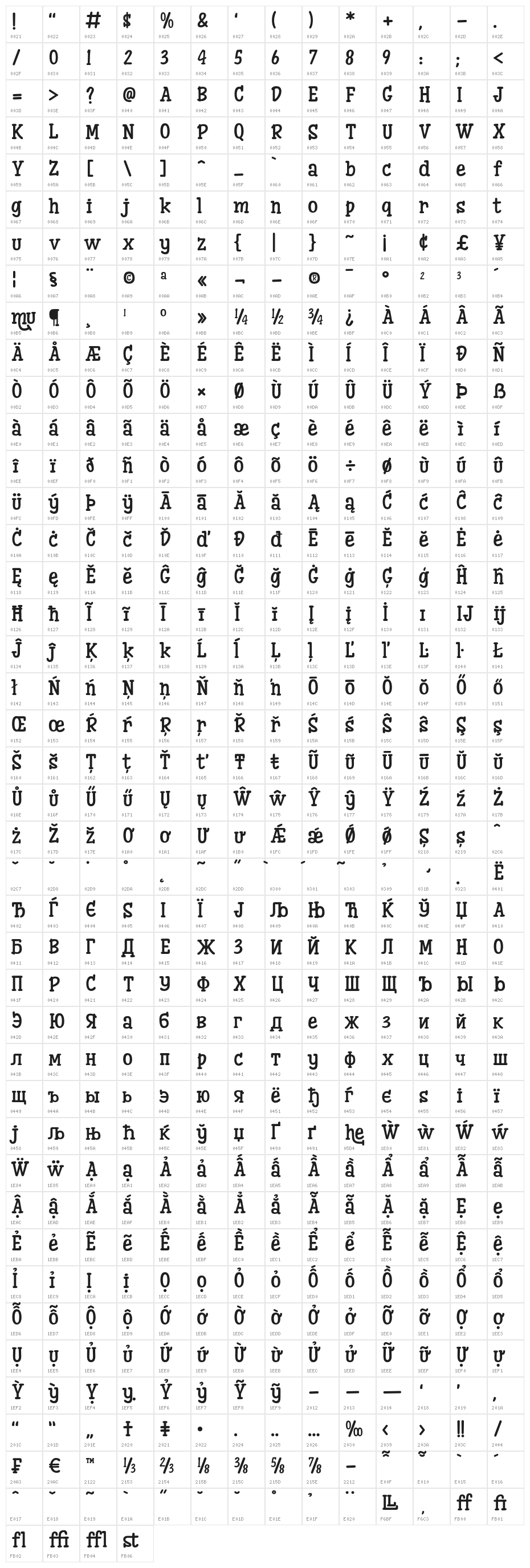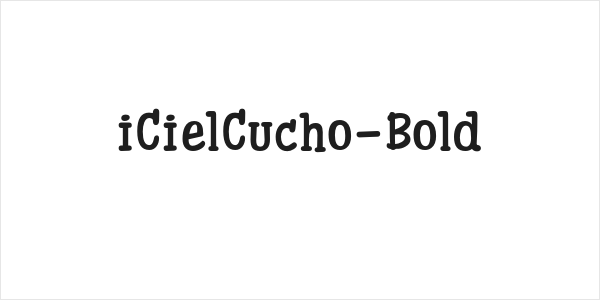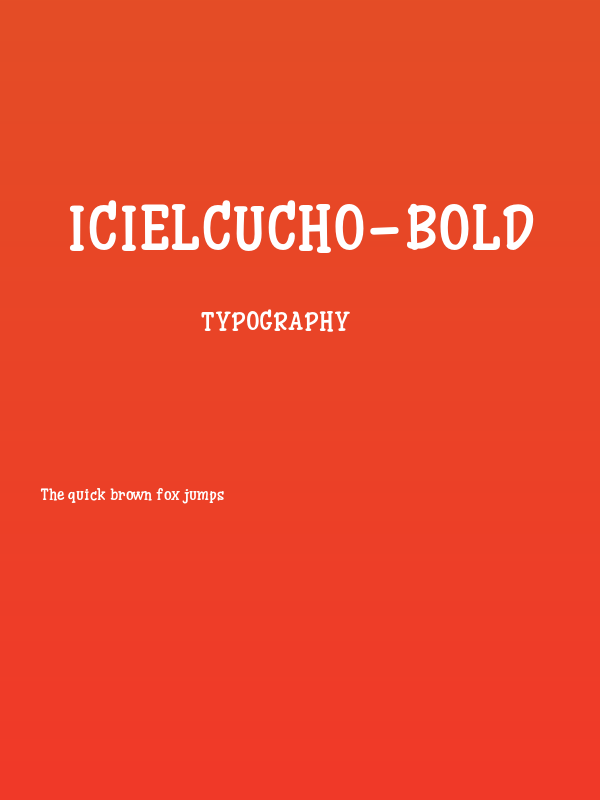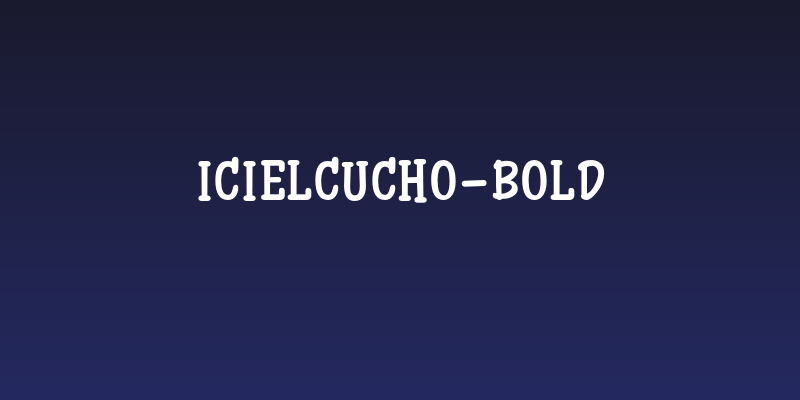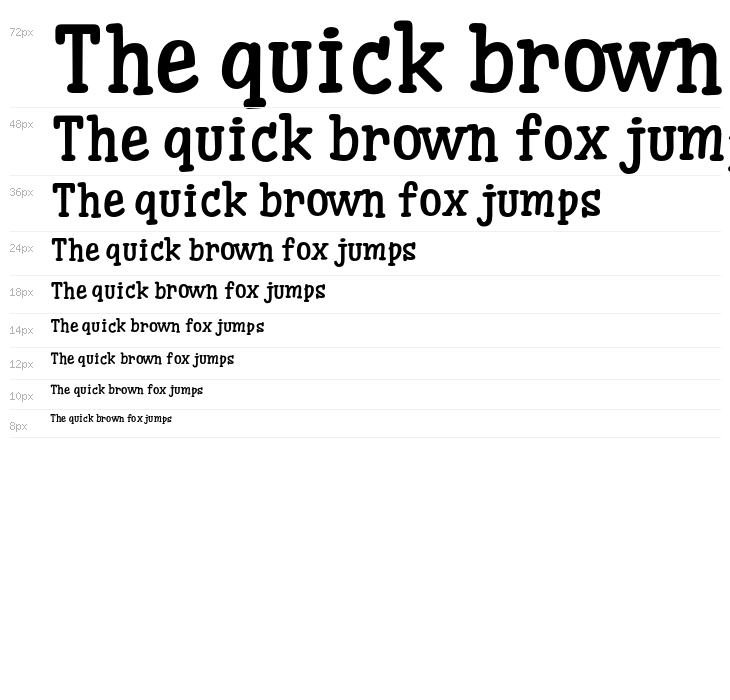
iCielCucho-Bold Font
iCielCucho-Bold Description
This font features a playful and bold design with rounded edges and a slightly irregular stroke, giving it a hand-drawn appearance. The uppercase letters are robust and commanding, while the lowercase letters maintain a friendly and approachable feel. Numbers and special characters are consistent with the overall style, ensuring readability and charm. The font's unique character is enhanced by its bold weight, making it suitable for attention-grabbing headlines and creative projects.
| Overall Style | Playful, Hand-drawn |
| Proposed Projects | Ideal for children's books, playful branding, posters, and creative headlines. |